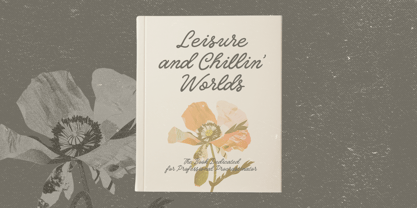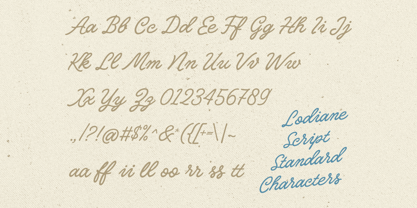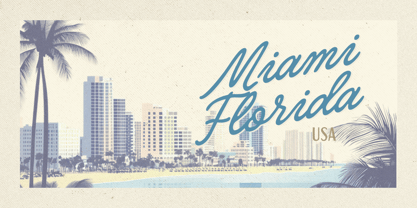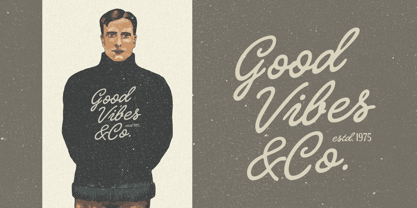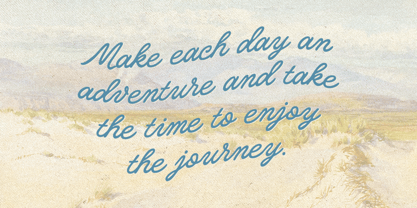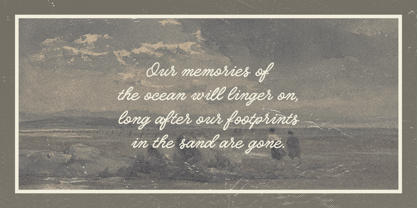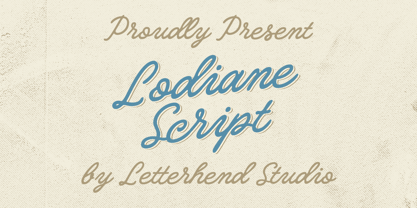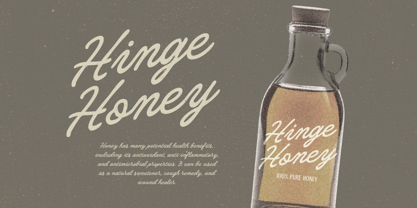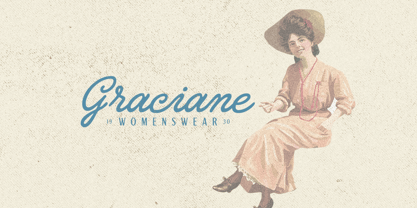
Lodiane Script
por Letterhend
La familia tipográfica Lodiane Script fue diseñada por Hendry Juanda y publicada por Letterhend. Lodiane Script contiene 1 estilos. Más información sobre esta familia
Lodiane Script is a vintage-inspired script font with elegant, flowing curves and a handcrafted feel. Its retro aesthetic, subtle shadowing, and smooth strokes make it perfect for branding, logos, packaging, invitations, and editorial design. With a nostalgic yet versatile charm, it’s ideal for projects that blend classic sophistication with a touch of rustic warmth.
Features :
• Uppercase & lowercase
• Numbers and punctuation
• Alternates Character
• Multilingual support